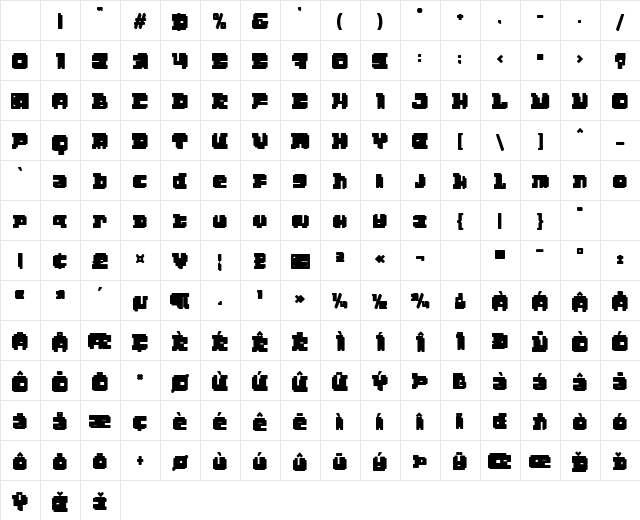
Techno Wave One has a distinctly futuristic character, with geometric precision and clean angles that feel at home in technology, gaming, and sci-fi contexts.